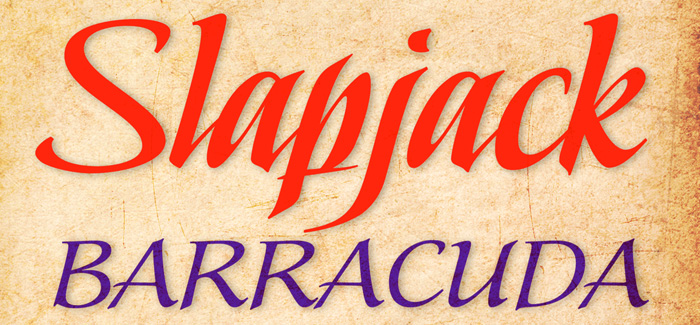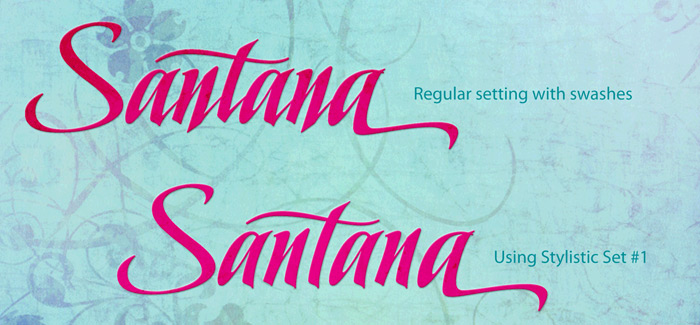
Slapjack font
Slapjack font by Stephen W. Rapp (Stephen Rapp foundry) is an unique rendition of a broad-edged calligraphic script. It has an elegant and graceful appearance, being distinctive and strikingly bold at the same time.
With its over 700 glyphs Slapjack font is perfect for packaging, signage, and titling. Slapjack is a fully-featured pro font with a great variety of OpenType features. Both regular and light weights have contextual and stylistic alternates, stylistic sets, swashes, ligatures, fractions, and Central European language support. Using Adobe InDesign which supports Stylistic Sets allows you to instantly convert your text to a version without baseline connectors for a more streamlined look. These can also be selected via the glyph palette. A bonus feature: unlike most script fonts, Slapjack is designed to also set well in all caps, making the typeface more versatile.
Stephen Rapp has been a lettering artist for over 2 decades. He was a recipient of the Hermann Zapf Scholarship Award in 1997 and has been a lettering artist and type developer for American Greetings since 2000. His lettering and type designs have been published in numerous publications including Letter Arts Review and the TDC’s Typography 30.